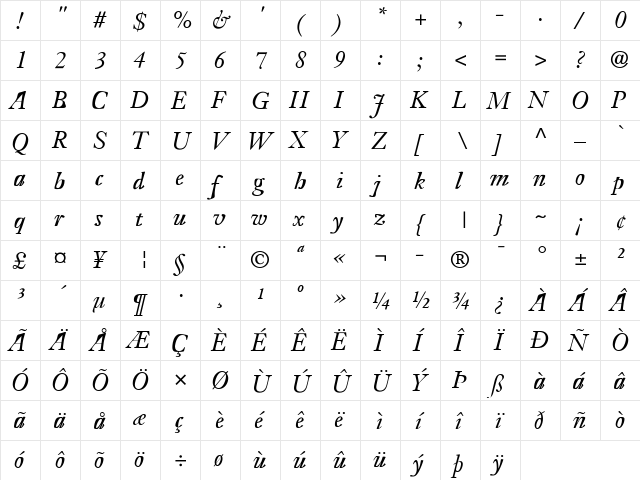
Shurpa Medium
Design Context for Shurpa Typeface
Shurpa takes a measured approach to typography — its balanced proportions and neutral character make it a reliable workhorse for both digital and print work.
Pro Tip: Use Shurpa in both headline and body roles to test its range before committing to a single application.